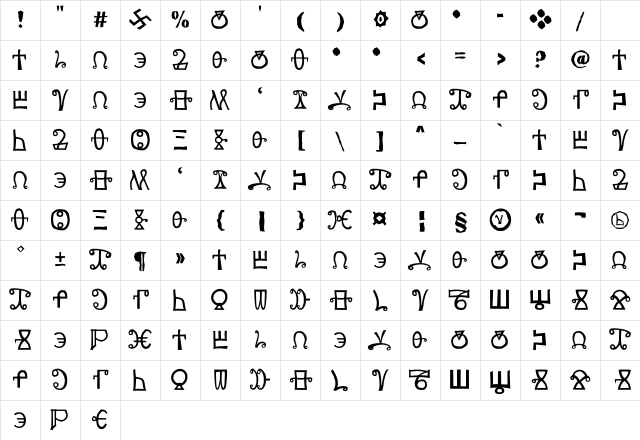
yatsutko_glagolitsa Normal
Design Context for yatsutko_glagolitsa
yatsutko_glagolitsa is a composed and adaptable typeface that performs quietly and consistently across a wide range of design contexts.